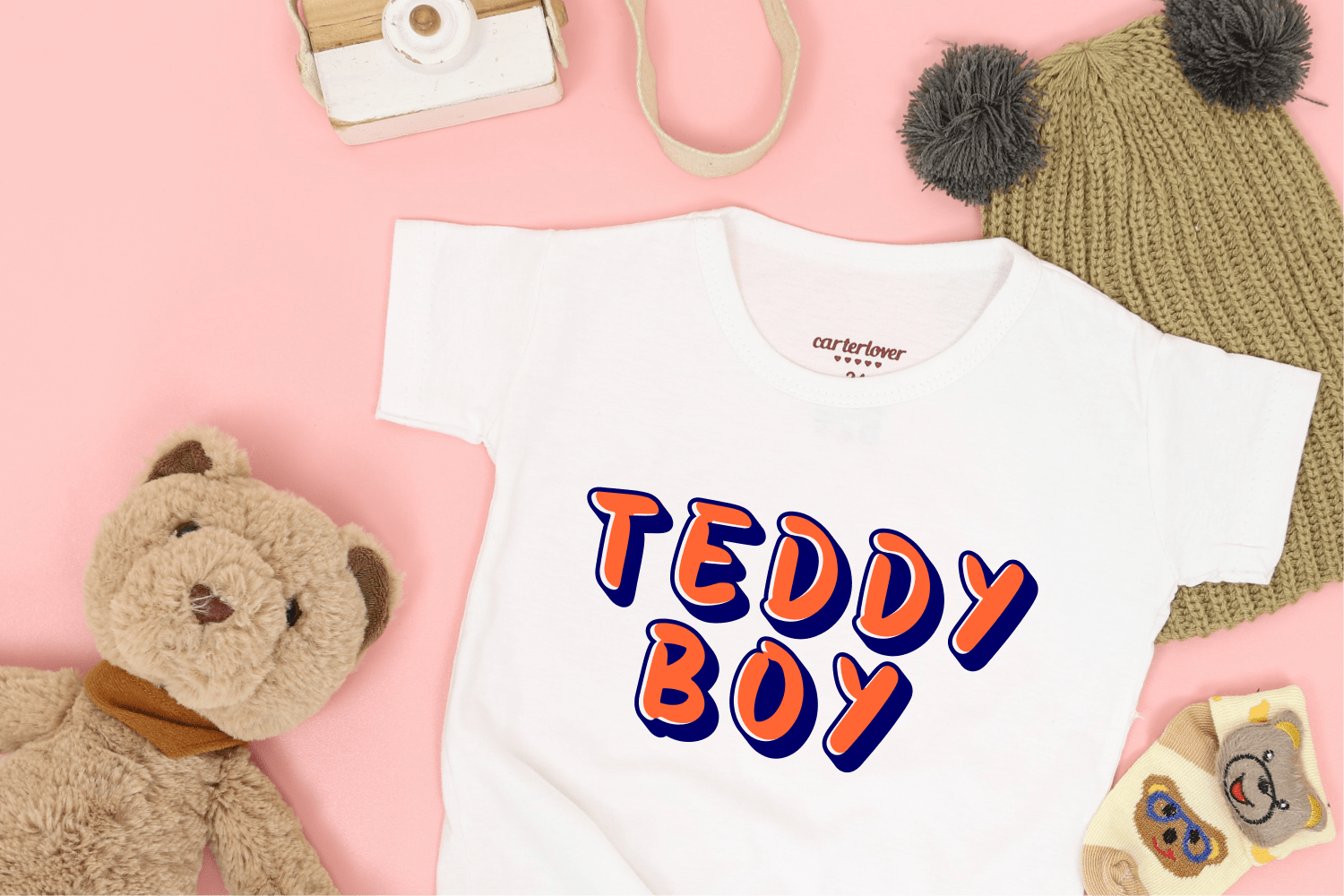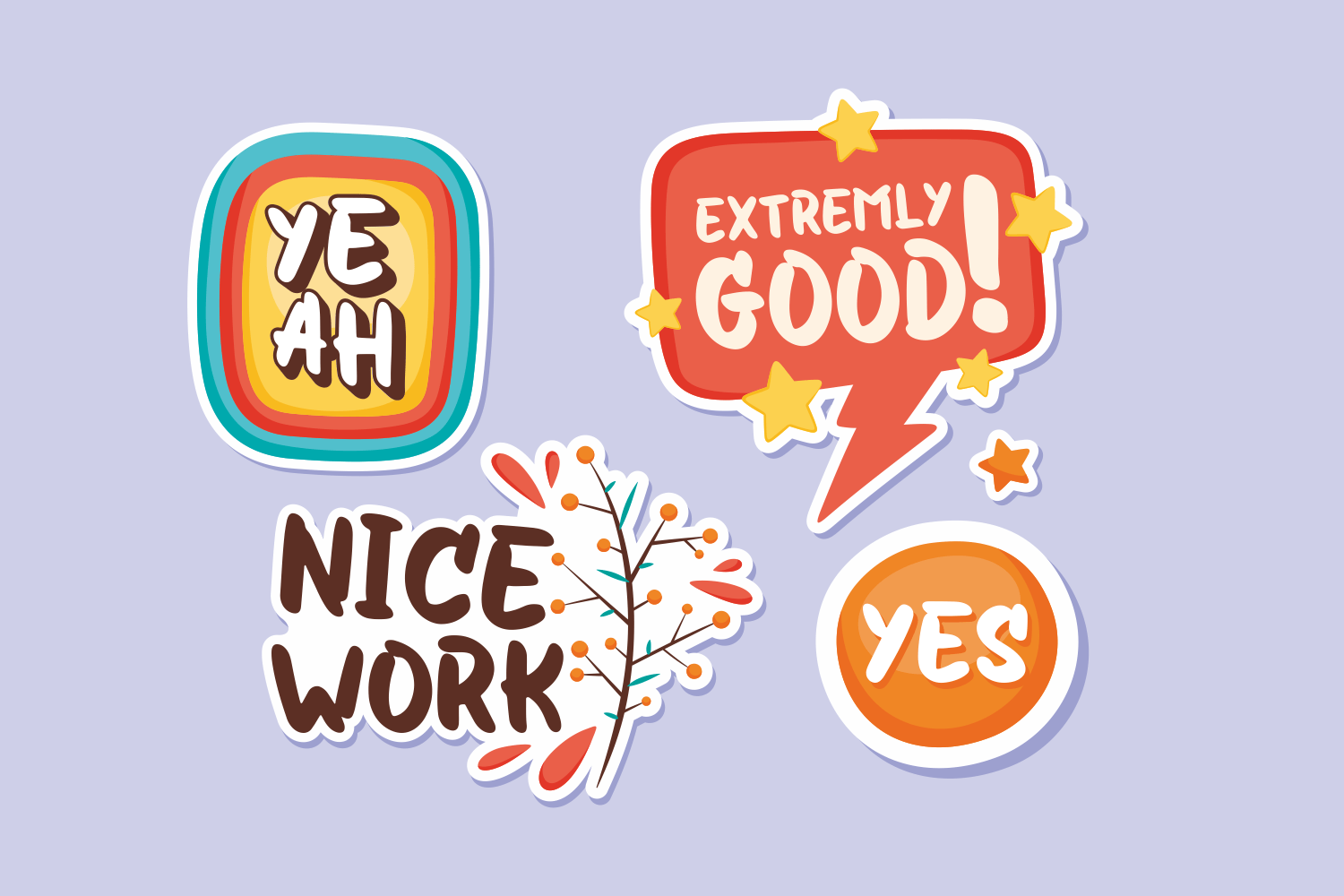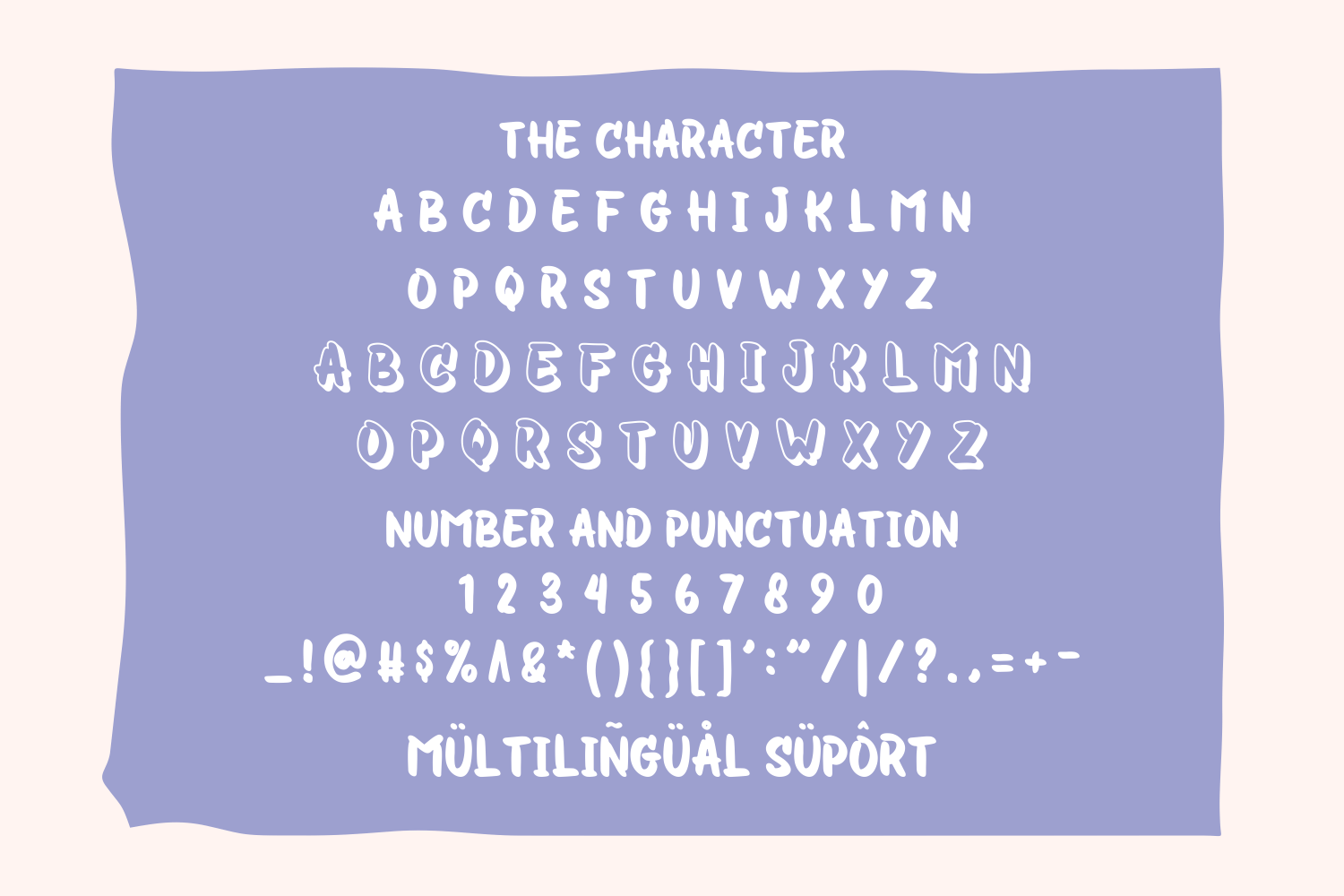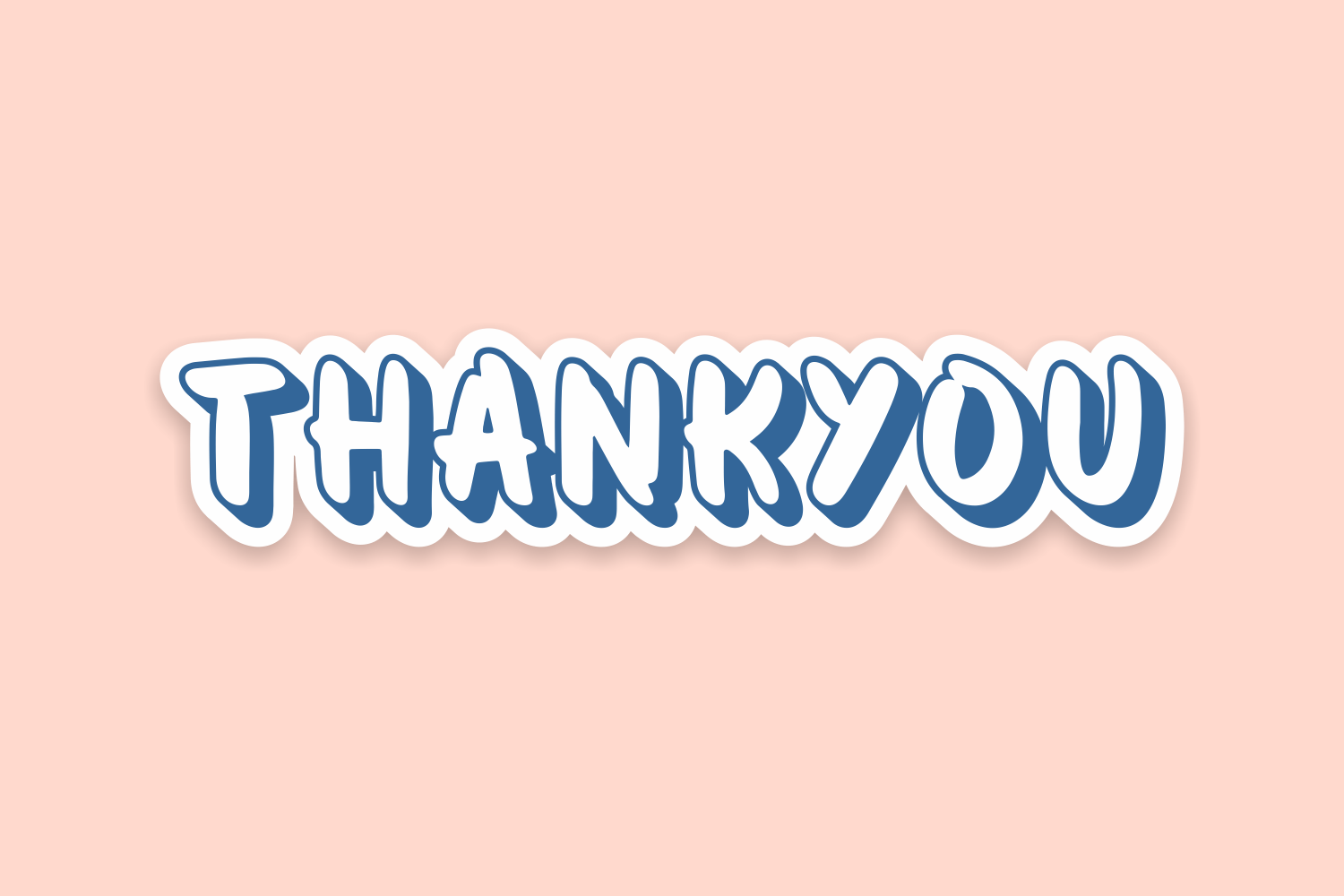
Hitormis Display Font is a fancy and elegant handcrafted font that was created to impress your audience and make your branding shine. Make your projects dance with this elegant and wonderful font wherever you use it.